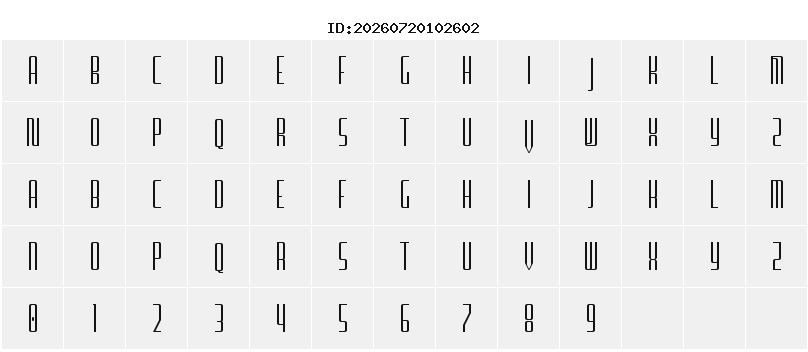
• Font Name: Furgatorio Sans Titling
• Designer: Aaron Amar
• Description: “Furgatorio Sans Titling” was built with FontStruct “Furgatorio Sans Titling” is based on “Furgatorio Titling” by “Aaron Amar” (http://fontstruct.com/fontstructors/show/93832/aaronamar), which is based on “Furgatorio” by “Aaron Amar” (http://fontstruct.com/fontstructors/show/93832/aaronamar)
Furgatorio Sans Titling.ttf is a modern, elegant sans-serif font designed for ultimate readability and visual harmony. Perfect for branding, headlines, web design, and print materials.